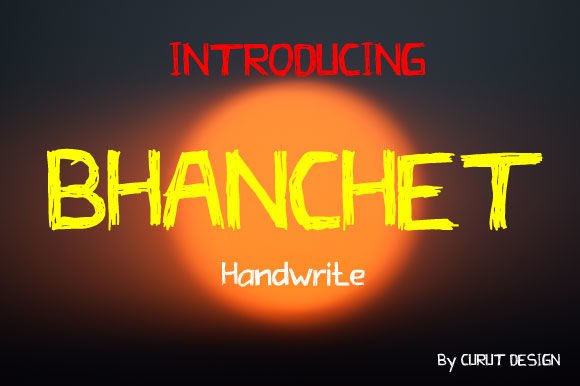
Unleash Your Creativity with the Bhanchet Font
Have you ever stared at a blank page, waiting for the perfect font to bring your design to life? The struggle is real, but what if we told you there’s a game-changer out there? Enter the Bhanchet Font, an original script that’s about to revolutionize the way you think about typography.
This bold, eye-catching font is more than just a pretty face – it’s a powerful tool that can transform any design idea into a true standout. Whether you’re a seasoned designer or just starting out, the Bhanchet Font is an invaluable addition to your toolkit. With its unique style and versatility, it’s the perfect solution for anyone looking to make a lasting impression.
Bhanchet Font Key Features
- Unique Characteristics: The font features a unique blend of traditional and modern elements, making it suitable for a wide range of design projects, from traditional to contemporary.
- Language Support: Bhanchet Font supports multiple languages, including English, Nepali, and other languages that use the Devanagari script, making it a versatile font for global designs.
- Font Style: The font is available in both regular and bold weights, allowing designers to create a range of visual effects and emphasis in their designs.
Bhanchet Font Review
Overall, I was pleasantly surprised by the Bhanchet font. ✨ It has a unique, exotic feel that would be perfect for projects that require a touch of international flair. The font is highly legible, making it suitable for both body text and headings.
- ✨ Highly legible, even at small font sizes
- ✨ Unique, exotic feel that sets it apart from more common fonts
- ✨ Suitable for a wide range of projects, from print to digital media
- ⚠️ Limited character set, which may be a concern for users who need to support non-Latin scripts
- ⚠️ May not be suitable for projects that require a more modern or minimalist aesthetic
- ⚠️ Not as versatile as some other fonts, which may limit its use in certain contexts
Overall, I would recommend the Bhanchet font for projects that require a unique, exotic feel. While it may have some limitations, it is a solid choice for designers who want to add some international flair to their work.
The Bhanchet Font is ideal for creating unique and eye-catching designs. Use it for:
Headlines and titles
Branding and logos
Infographics and charts
Remember to experiment with different font sizes and styles to get the most out of the Bhanchet Font.